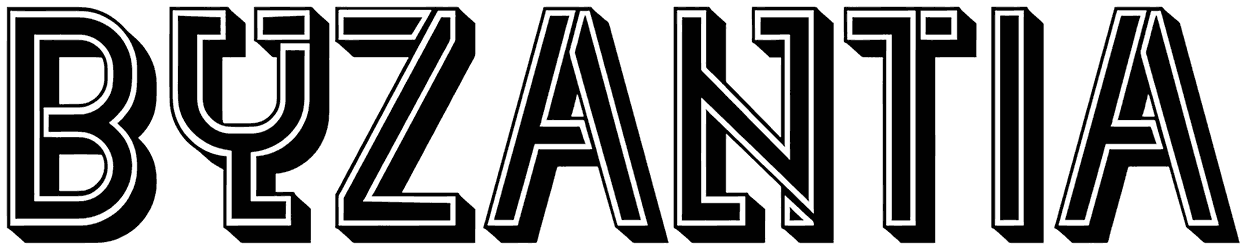
Byzantia Font
Do you need a font that will help you create a more professional and impressive design? So Byzantia suits your taste. This 3D font is perfect for all uses, from web design to social media and street posters.
This shadow font is presented in two styles that look very eye-catching with neon design or a dark background. So if you’re looking to create amazing designs that will easily grab the attention of any reader, Byzantia can perform well even without lowercase letters.